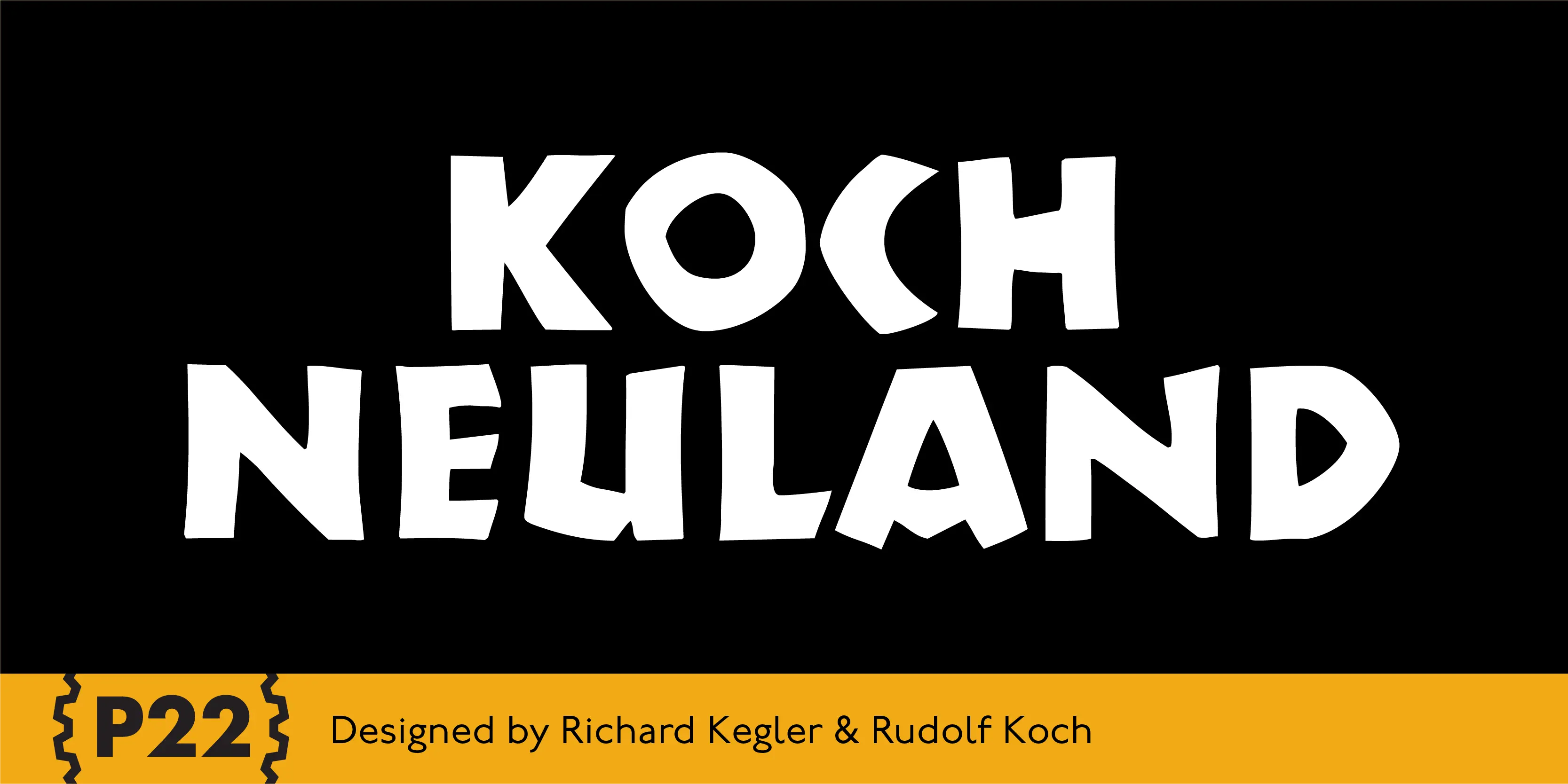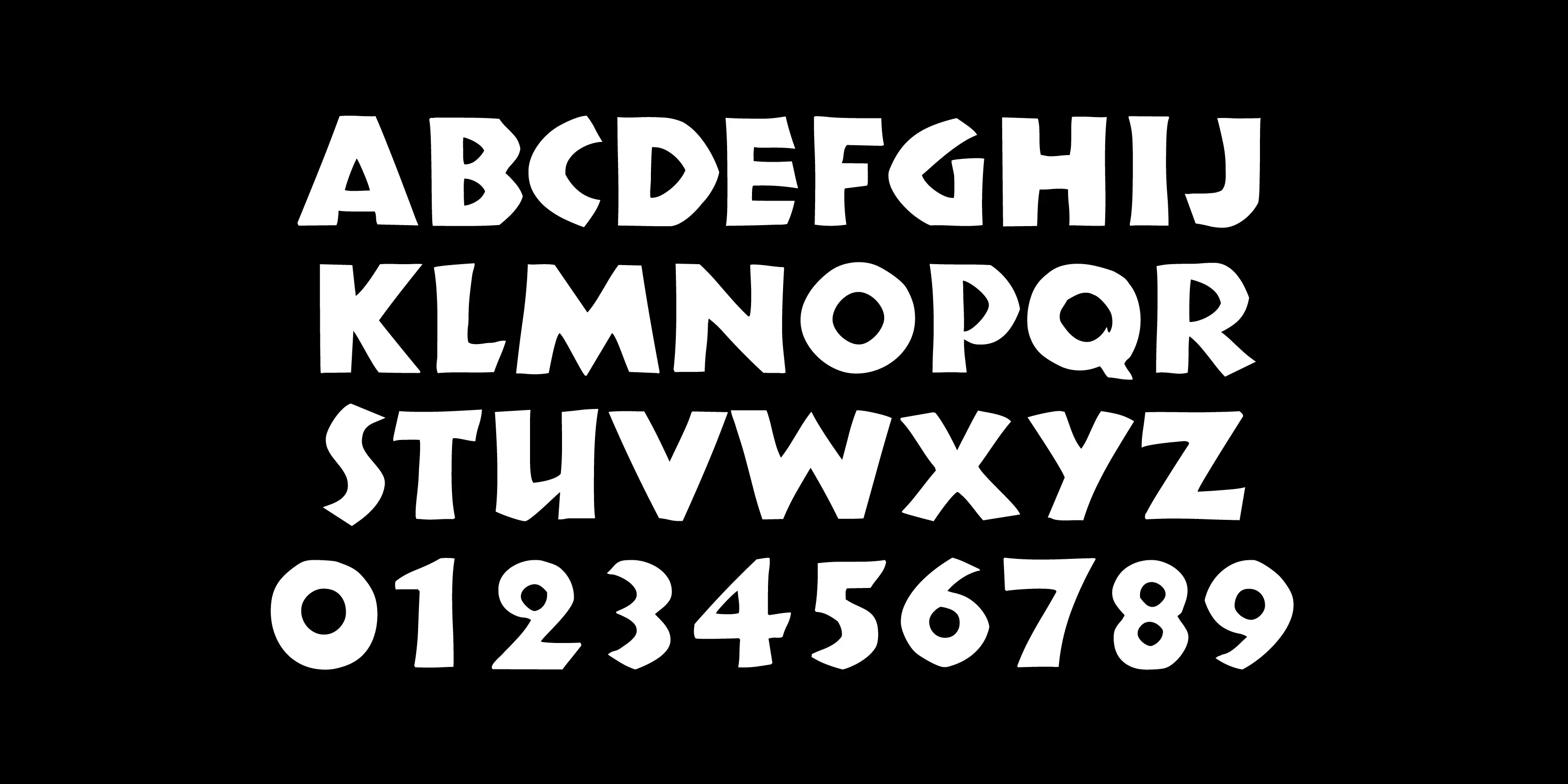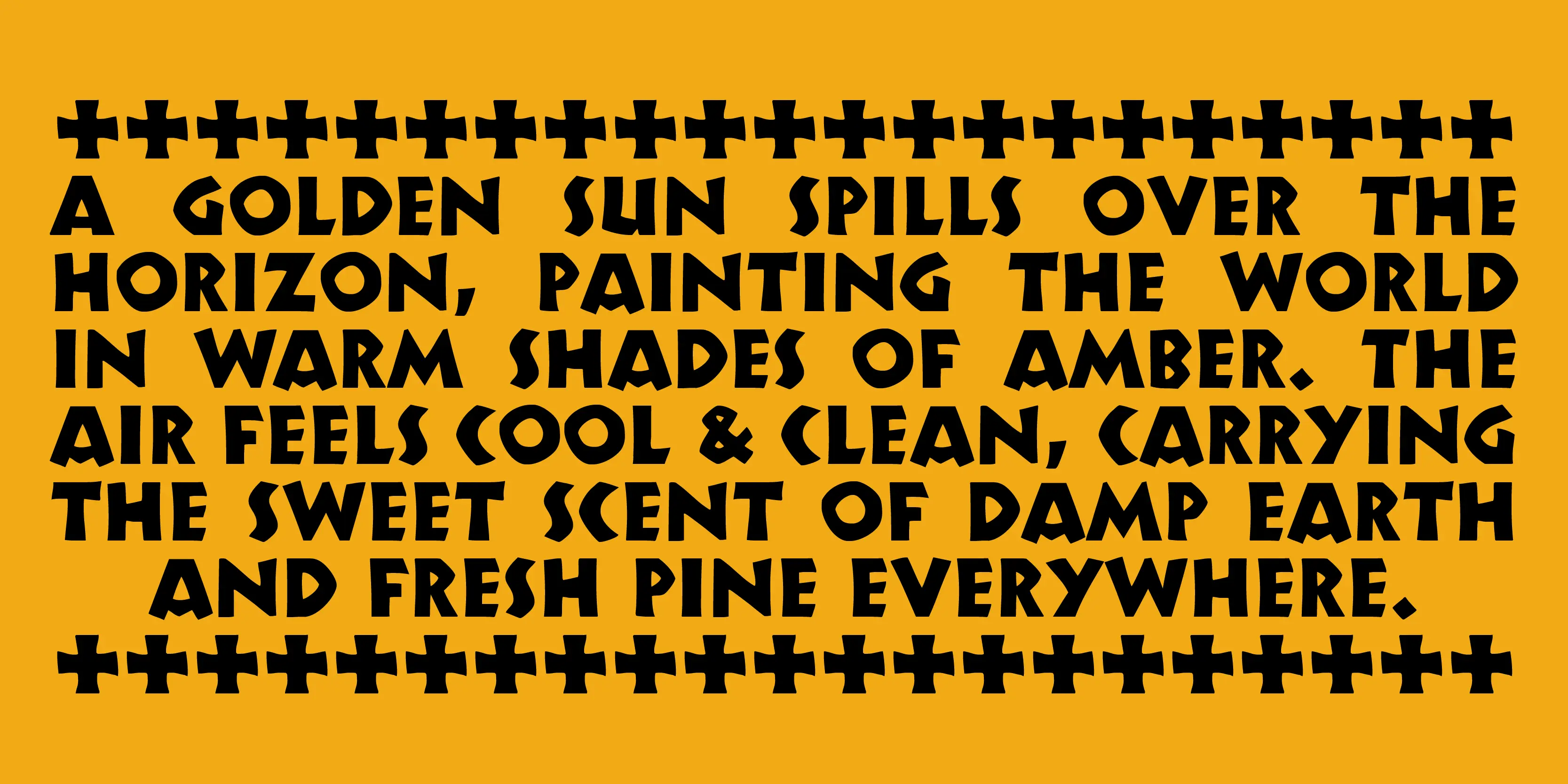
Koch Neuland Font
Koch Neuland
P22 Koch Neuland is a revival of a typeface designed for the Klingspor Type Foundry in 1923. Rudolf Koch originally carved this face directly into metal. The family also features alternate characters lost to subsequent digital versions. This roughly primal face could be used for theater posters, holiday cards, packaging and labels, and book covers. Anywhere you want something a little brutish or audacious.